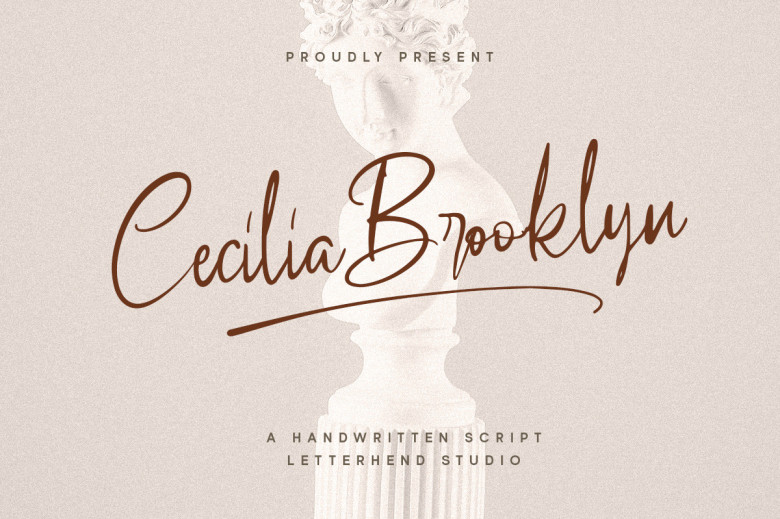
Cecilia Brooklyn Font
Cecilia Brooklyn is a feminine Handwritten Script font with many ligatures. This font perfectly made to be applied especially in logo, and the other various formal forms such as invitations, labels, logos, magazines, books, greeting / wedding cards, packaging, fashion, make up, stationery, novels, labels or any type of advertising purpose.
Cecilia Brooklyn Handwritten Script Font